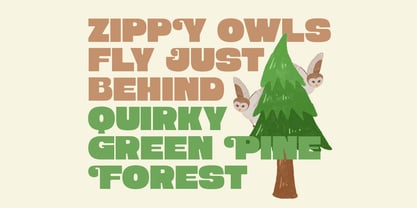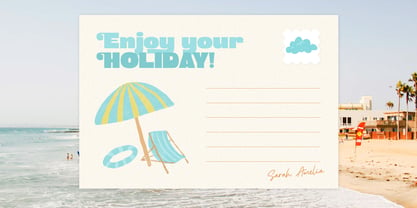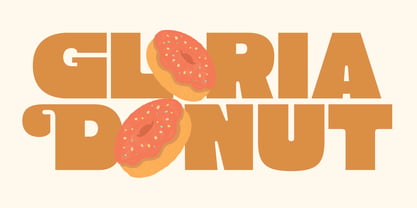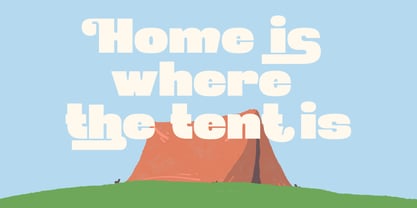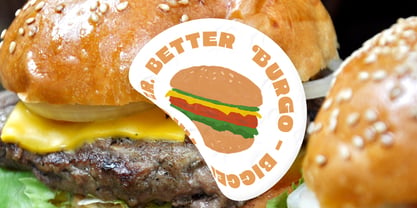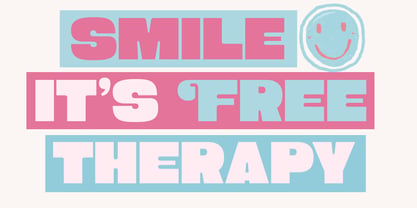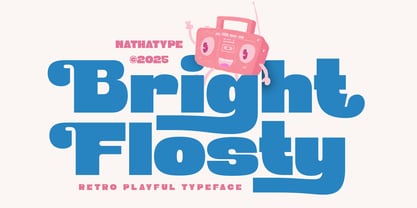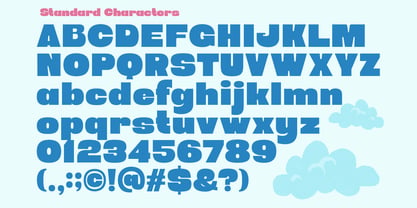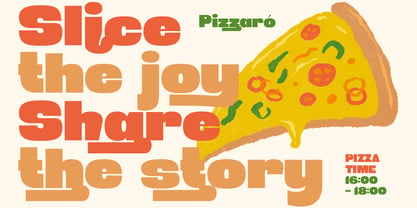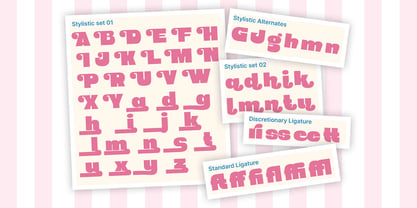
Bright Flosty
by Nathatype
The Bright Flosty Font Family was designed by Donis Miftahudin and published by Nathatype. Bright Flosty contains 1 styles. More about this family
Bright Flosty is a retro display font that bursts with playful charm and bold personality. Its chunky letterforms and lively curves capture the fun-loving spirit of vintage design, making it perfect for projects that need a splash of nostalgia with a modern twist. Designed to grab attention, Bright Flosty shines in design that aims to feel both bold and cheerful. With its eye-catching style and upbeat energy, this font brings a touch of retro fun to any creative work. In addition, enjoy the features here. Features: Alternates Stylistic Sets Ligatures Multilingual Supports PUA Encoded Numerals and Punctuations Bright Flosty fits in branding, packaging, logos, posters, headlines, and many more designs. Find out more ways to use this font by taking a look at the font preview. Thanks for purchasing our fonts. Hopefully, you have a great time using our font. Feel free to contact us anytime for further information or when you have trouble with the font. Thanks a lot and happy designing.
Designers: Donis Miftahudin
Foundry: Nathatype